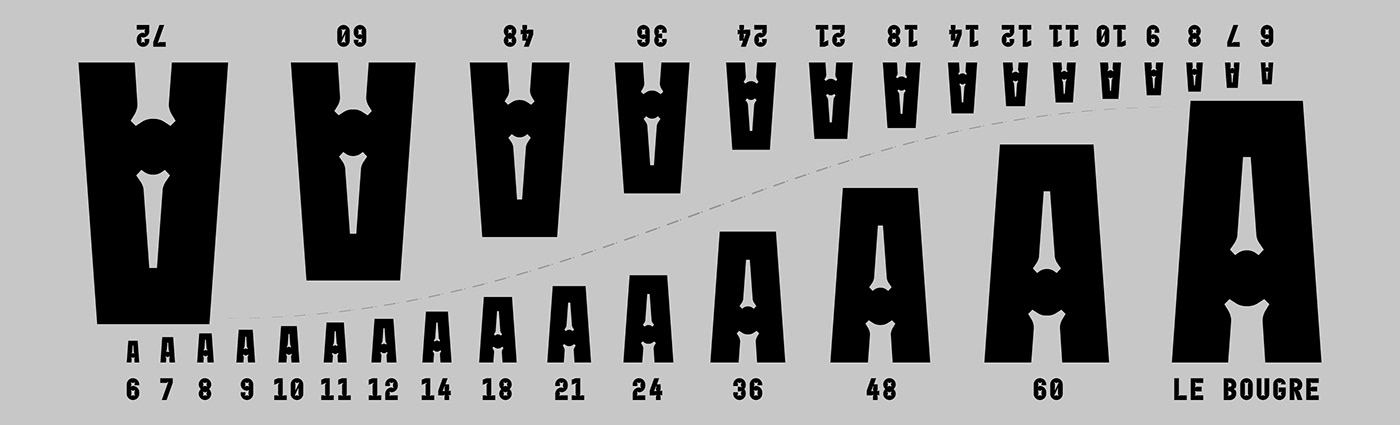
Le Bougre is a bold monospaced typeface by Max Valcheux. It has a unique ink trap styling and includes many premium features like multilingual characters, circled and superscript characters, as well as some alternate characters.